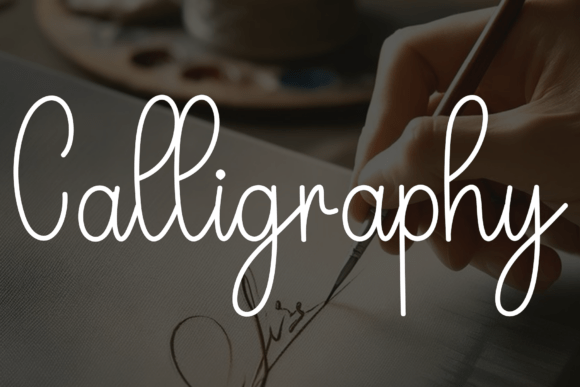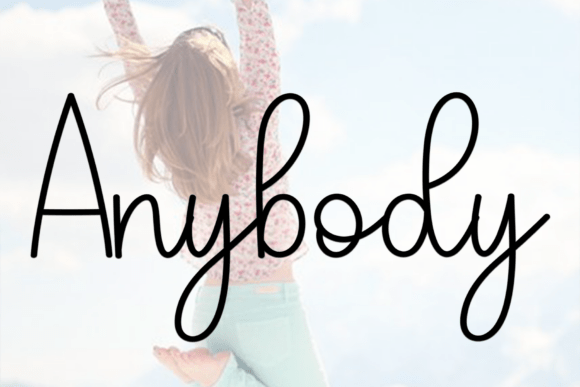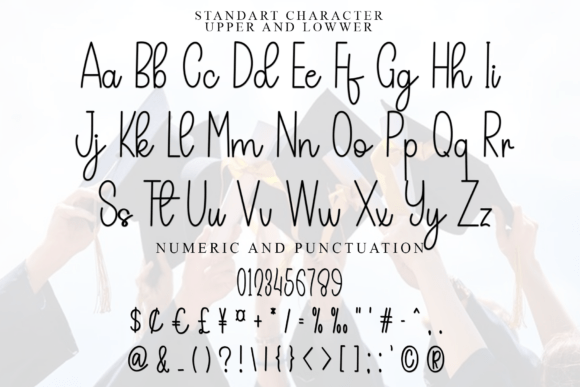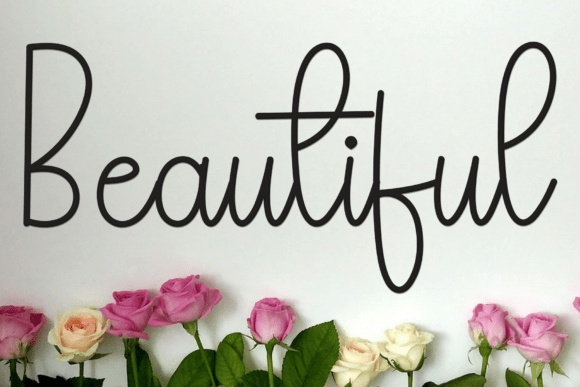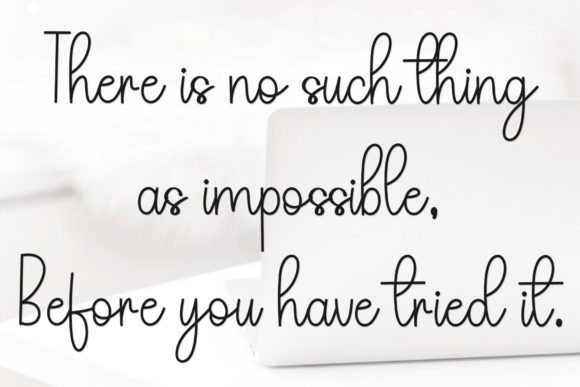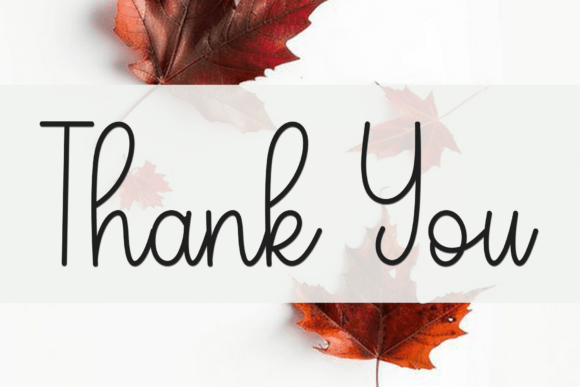
Crafting Font: The Ultimate Holiday Typeface for Designers and Crafters
The holiday season is upon us, and with it comes the joy of creating festive and merry designs that capture the spirit of the season. As a designer or crafter, you’re likely on the lookout for the perfect typeface to add a touch of enchantment to your projects. Look no further than Crafting Font, a decorative and whimsical font that’s perfect for greeting cards, gift tags, and holiday-themed projects.
What Makes Crafting Font So Special?
Crafting Font is a beautifully designed typeface that embodies the magic of the holiday season. Its decorative elements and whimsical flair make it the perfect choice for adding a cheerful and nostalgic ambiance to your words. Whether you’re creating holiday greeting cards, gift tags, or festive decorations, this font is sure to bring a smile to the faces of those who see your designs.
Crafting Font is specifically designed with holiday projects in mind. Its festive and merry vibe makes it perfect for a wide range of applications, including:
- Holiday greeting cards: Add a personal touch to your holiday cards with Crafting Font’s decorative and whimsical flair.
- Gift tags: Make your gifts stand out with beautifully designed gift tags featuring Crafting Font.
- Holiday-themed decorations: Use Crafting Font to create festive decorations, such as garlands, banners, and signs.
- Social media graphics: Add a touch of holiday cheer to your social media graphics with Crafting Font.
One of the best things about Crafting Font is that it’s PUA (Private Use Area) encoded, which means you can access all of the amazing glyphs and ligatures with ease. This makes it simple to incorporate the font into your designs and take advantage of its full range of features.
Why Choose Crafting Font?
With so many fonts to choose from, why should you choose Crafting Font? Here are just a few reasons:
- Unique and festive design: Crafting Font has a unique and festive design that’s sure to stand out in any project.
- High-quality encoding: The font is PUA encoded, making it easy to access all of its features.
- Versatile: Crafting Font can be used in a wide range of projects, from holiday greeting cards to social media graphics.
Tips for Using Crafting Font
Here are a few tips for getting the most out of Crafting Font:
- Experiment with different sizes and colors: Crafting Font looks great in a variety of sizes and colors, so don’t be afraid to experiment.
- Pair with other fonts: Try pairing Crafting Font with other fonts to create a unique and interesting look.
- Use in combination with graphics: Crafting Font looks great when used in combination with graphics, such as holly leaves or snowflakes.
Whether you’re a professional designer or a crafter looking for a fun and festive font, Crafting Font is the perfect choice. Its unique and festive design, high-quality encoding, and versatility make it a must-have for anyone looking to create beautiful and eye-catching holiday designs.